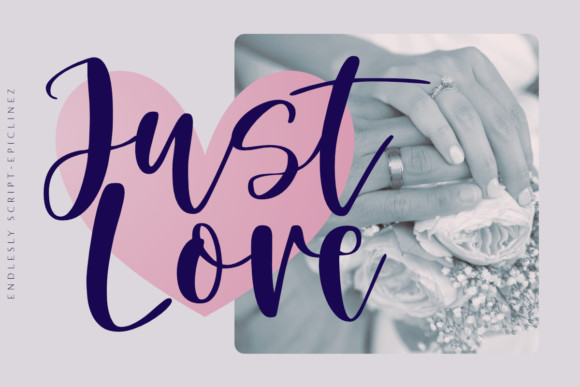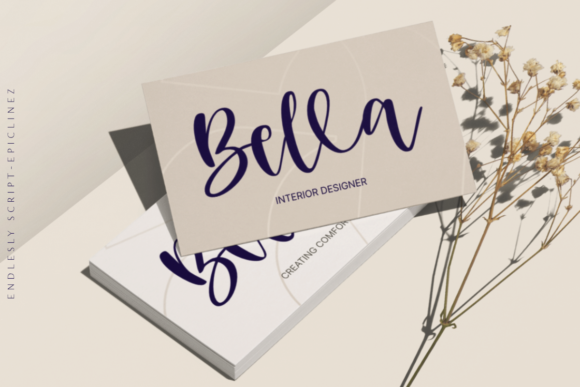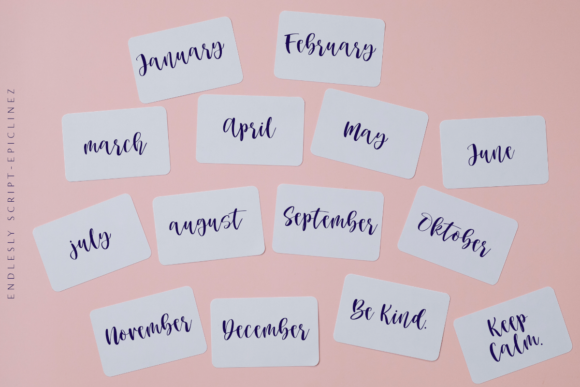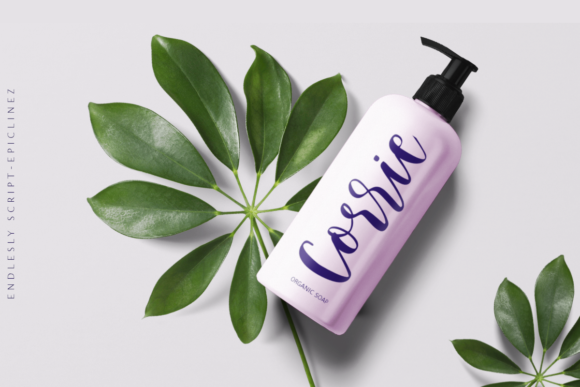
Introducing Endlessly Font: Elevate Your Designs with Elegance and Sophistication
In the world of typography, a font can make or break the aesthetic of a design project. For those seeking a touch of elegance and sophistication, the Endlessly Font is an exceptional choice. This beautiful handwritten font boasts sophisticated characters and a lovely, elegant touch, making it perfect for projects that require an authentic and attractive appearance.
What Makes Endlessly Font Stand Out?
Endlessly Font is not just another addition to the vast library of typefaces available to designers and crafters. Its unique blend of elegance and approachability sets it apart from more traditional fonts. The characters in Endlessly Font are meticulously crafted to convey a sense of refinement and luxury, making it an ideal selection for a variety of design applications, from branding and packaging to wedding invitations and personal stationery.
Key Features of Endlessly Font
- Handwritten Elegance: Endlessly Font offers a handwritten aesthetic that is both personal and sophisticated. Its fluid strokes and graceful curves bring a sense of warmth and authenticity to any design.
- Sophisticated Characters: Each character in the Endlessly Font is designed with attention to detail, ensuring that every letter, number, and symbol contributes to the overall elegance of the text.
- Versatility: Whether you’re working on a high-end branding project, a wedding invitation, or a personal craft, Endlessly Font adapts seamlessly to various design needs, providing a versatile solution for creatives.
- Easy to Read: Despite its elegant appearance, Endlessly Font maintains excellent readability, making it suitable for both headings and body text.
Who Can Benefit from Endlessly Font?
Endlessly Font is a valuable resource for a wide range of professionals and hobbyists, including:
- Graphic Designers: Looking for a sophisticated font to elevate their branding, advertising, or editorial designs.
- Stationery and Paper Crafters: Creating custom stationery, journals, or greeting cards that require a personal touch.
- Wedding Planners and Stylists: Seeking elegant typography for wedding invitations, menus, and decor.
- DIY Enthusiasts: Working on personal projects that demand a unique and attractive font.
How to Use Endlessly Font Effectively
| Font Name | Endlessly Font |
| Author | Epiclinez |
Endlessly Font is a stunning addition to any designer’s toolkit, offering a perfect blend of elegance, sophistication, and readability. Its versatility and aesthetic appeal make it an excellent choice for a wide range of projects. Whether you’re a professional designer or a crafting enthusiast, Endlessly Font provides the means to add a touch of luxury and personality to your work. Explore the possibilities of Endlessly Font today and discover how it can elevate your designs to new heights of elegance and sophistication.